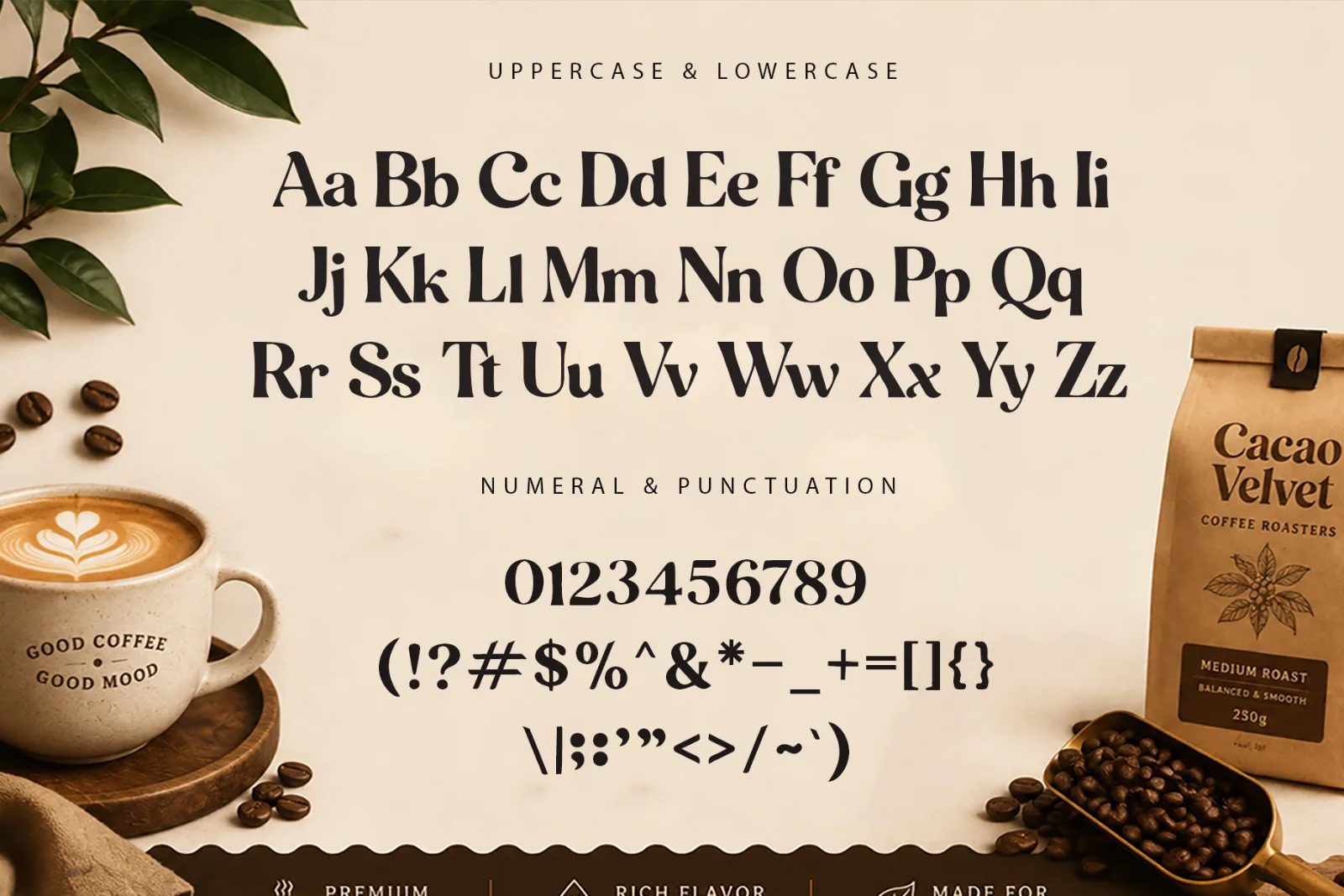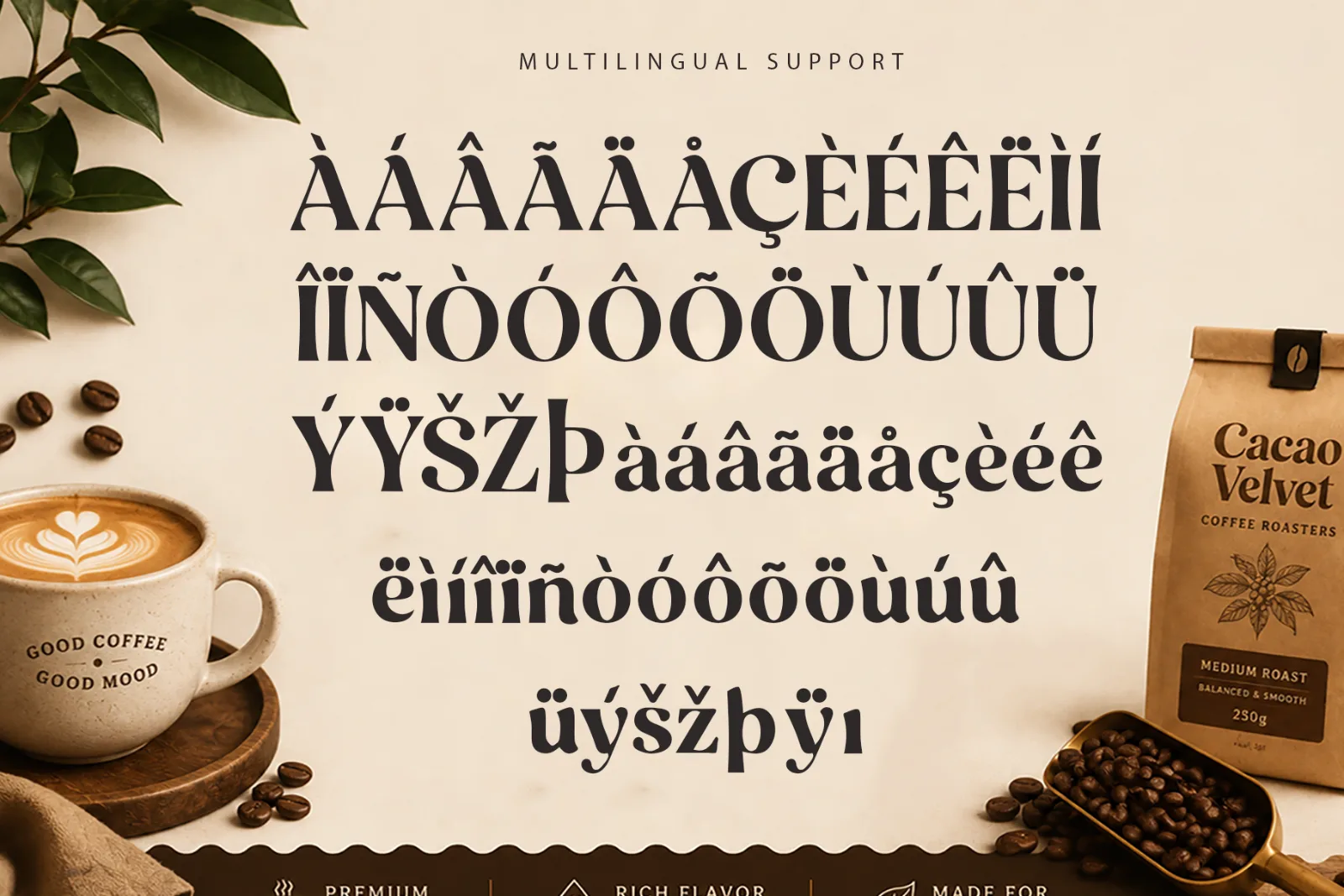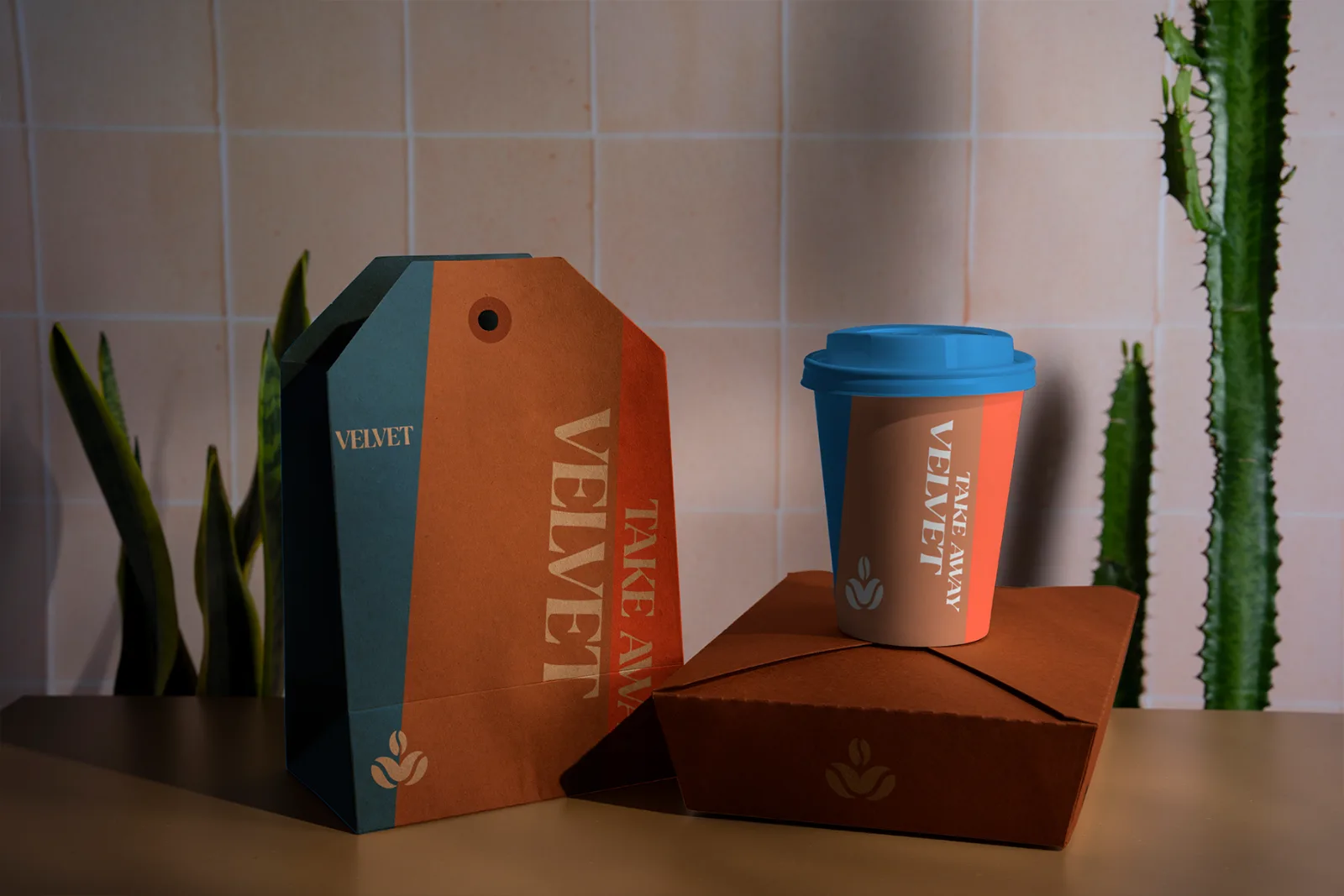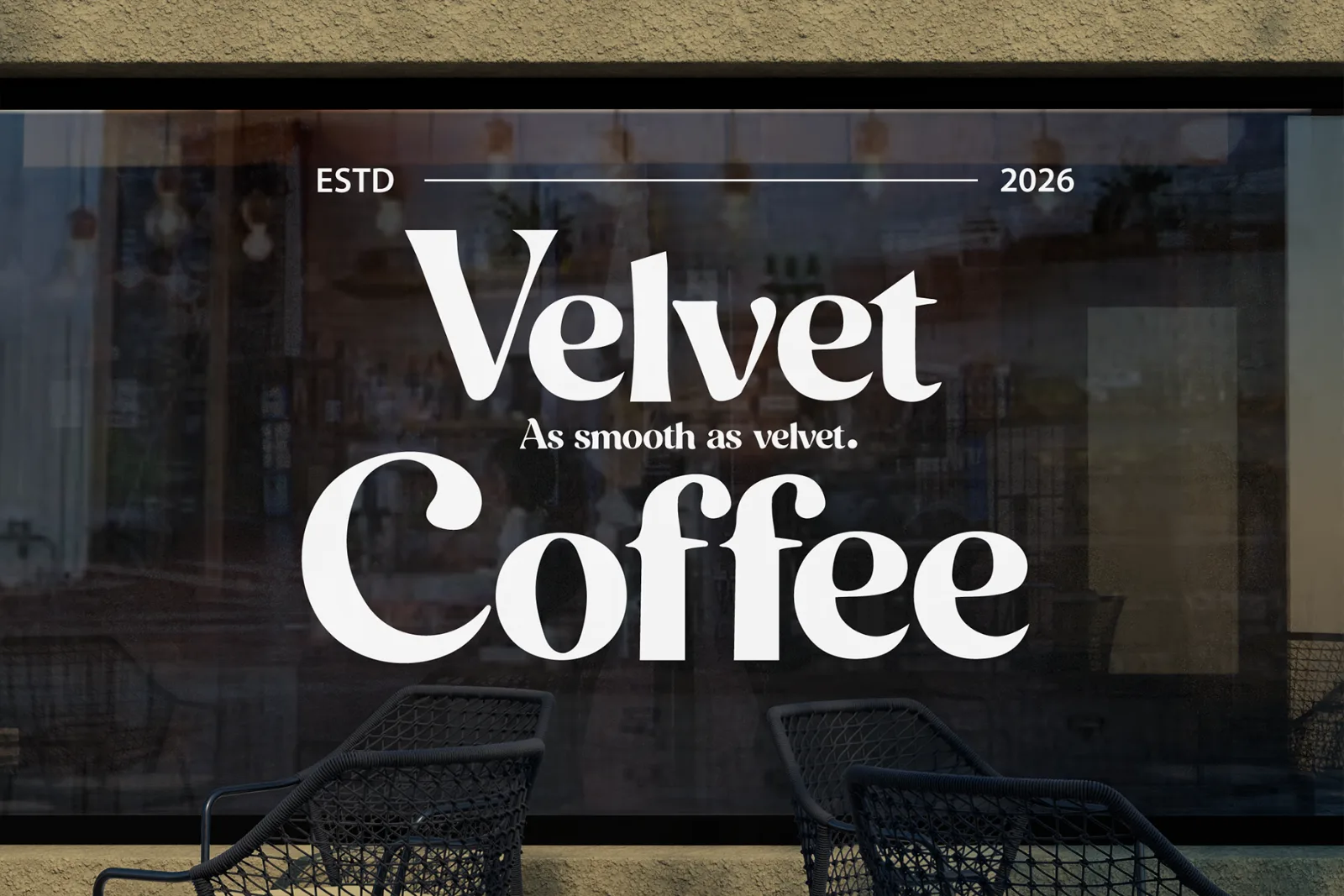
Cacao Velvet – Modern Elegant Serif Font
Cacao Velvet is a refined modern serif font designed with elegant curves, confident proportions, and a warm sophisticated personality. Its graceful letterforms create a premium yet approachable look that works beautifully across branding, packaging, editorial design, and lifestyle projects.
Inspired by artisan coffee culture and timeless luxury aesthetics, Cacao Velvet is an excellent choice for brands that need elegant typography with a distinctive contemporary character.
Perfect for:
- Coffee Shop Branding
- Café & Restaurant Identity
- Premium Packaging
- Logo Design
- Editorial Layouts
- Food & Beverage Branding
- Labels & Stickers
- Magazine Covers
- Boutique Branding
- Beauty & Lifestyle Products
- Social Media Graphics
- Elegant Advertising